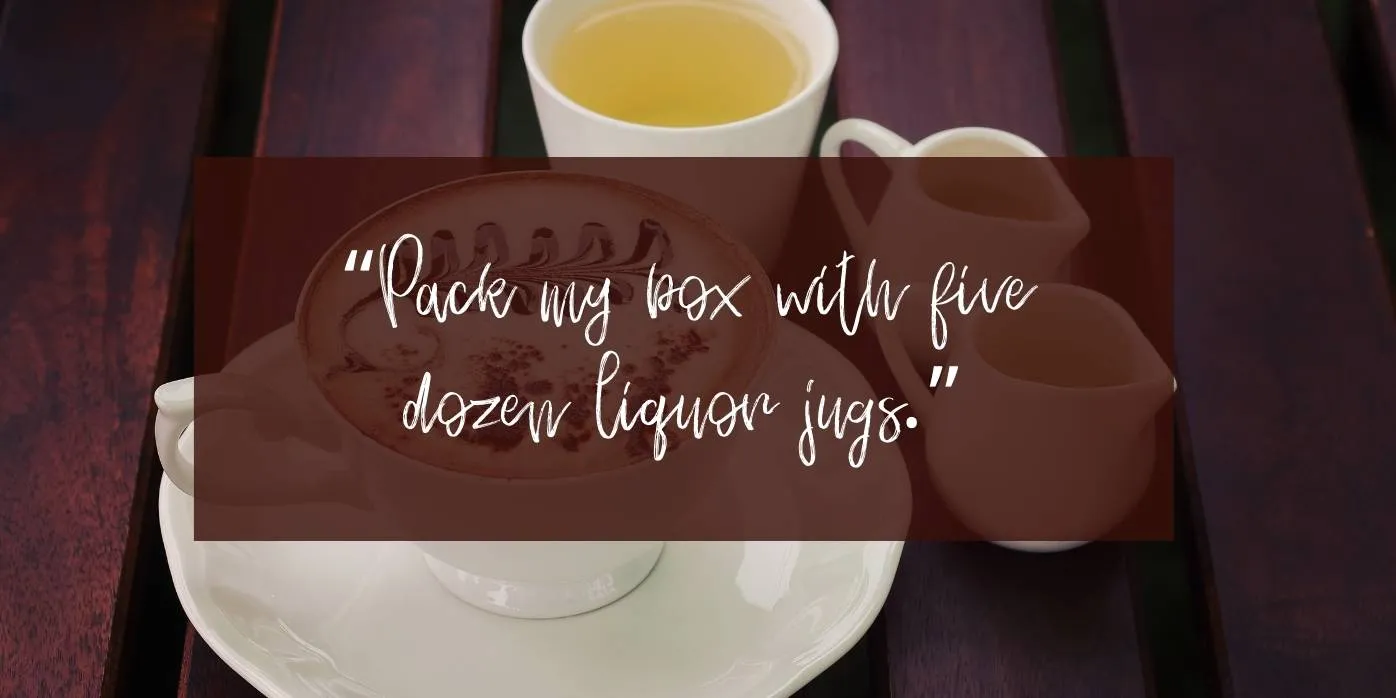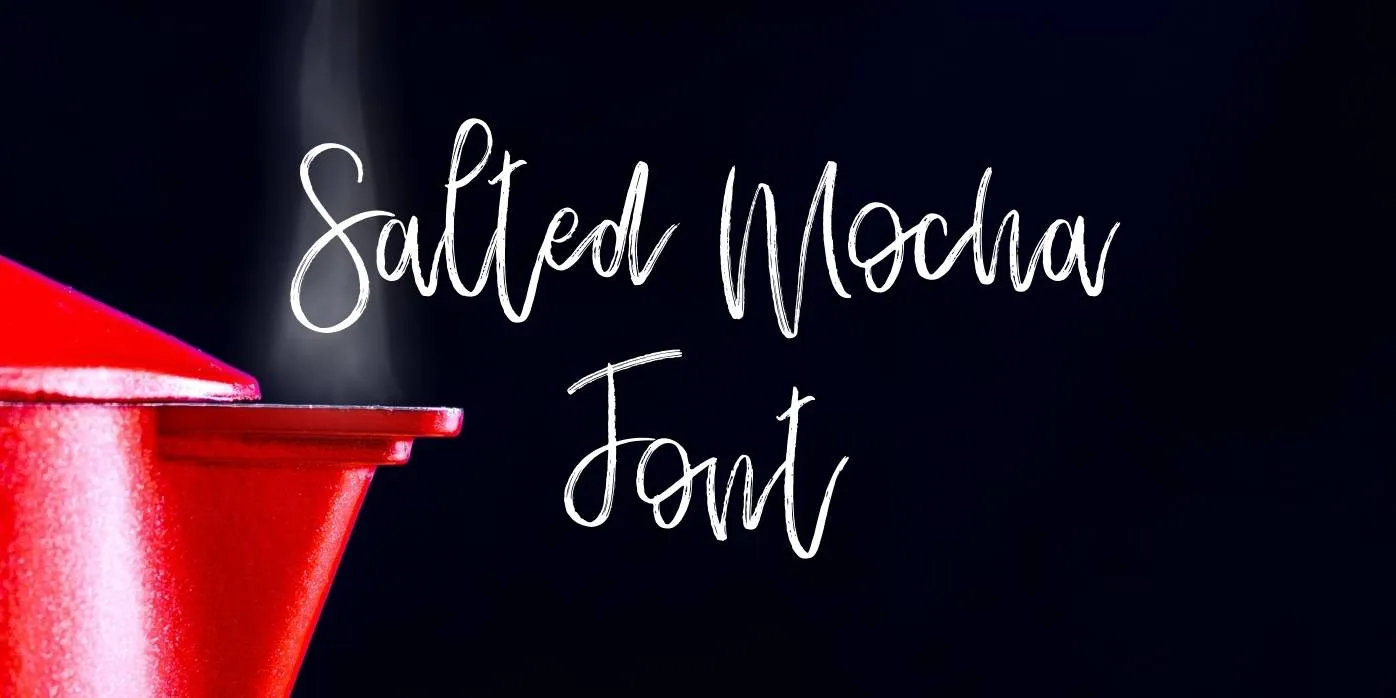
Salted Mocha Font
Today, we are consulting on Salted Mocha Font which belongs to the Brush font family. This staggering typeface was developed and published by Stephanie Arsenault. This typeface is well specified by the CSS and SVG. It has a very organic feeling to it, which is due to the brush-style characters and irregular edges.
It is perfect for headlines, logos, and posters. It also comes in two variations: regular and italic. The regular is perfect for shorter text, while the italic gives your text a more dynamic look. Its copy and paste function is best for different designs.